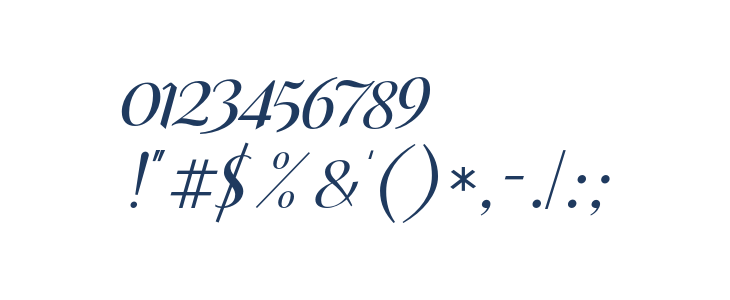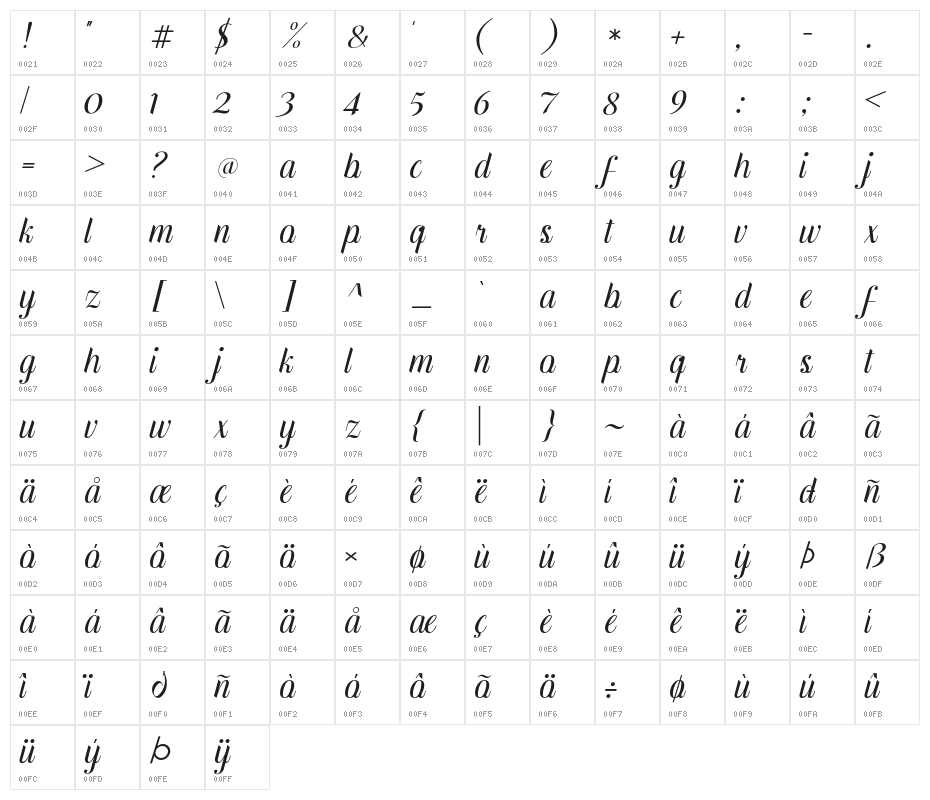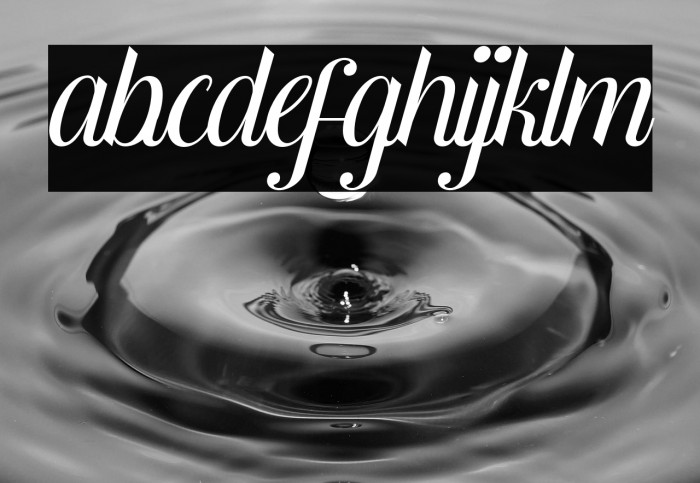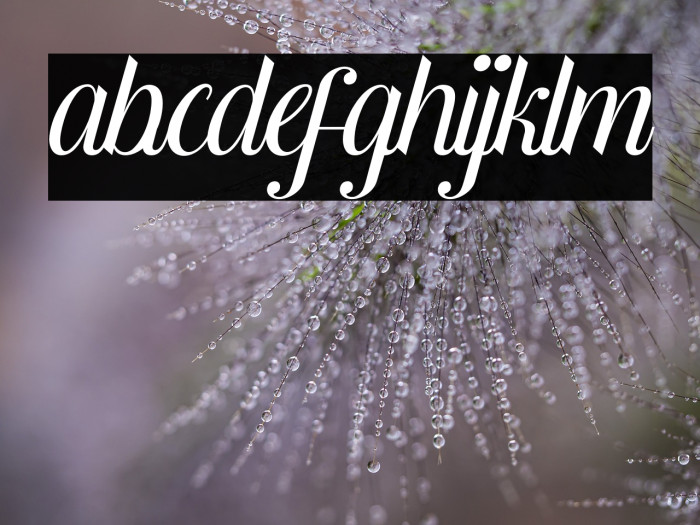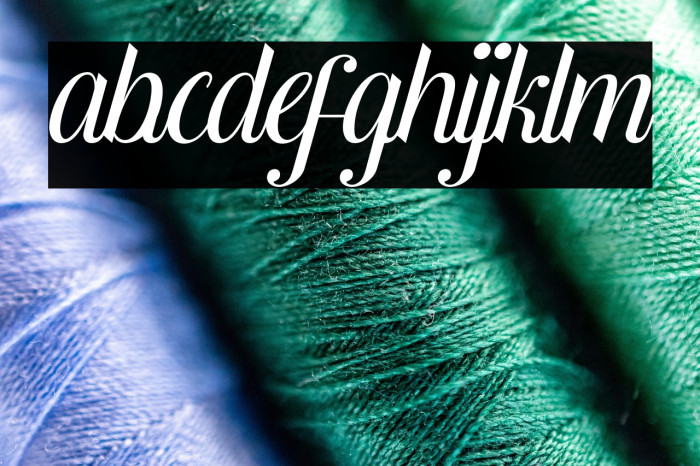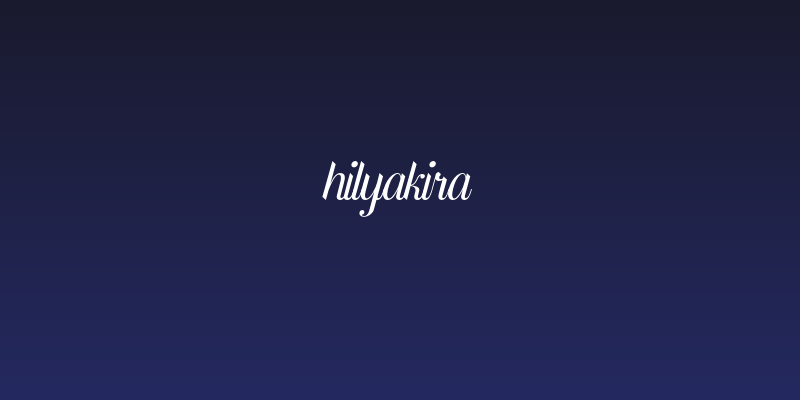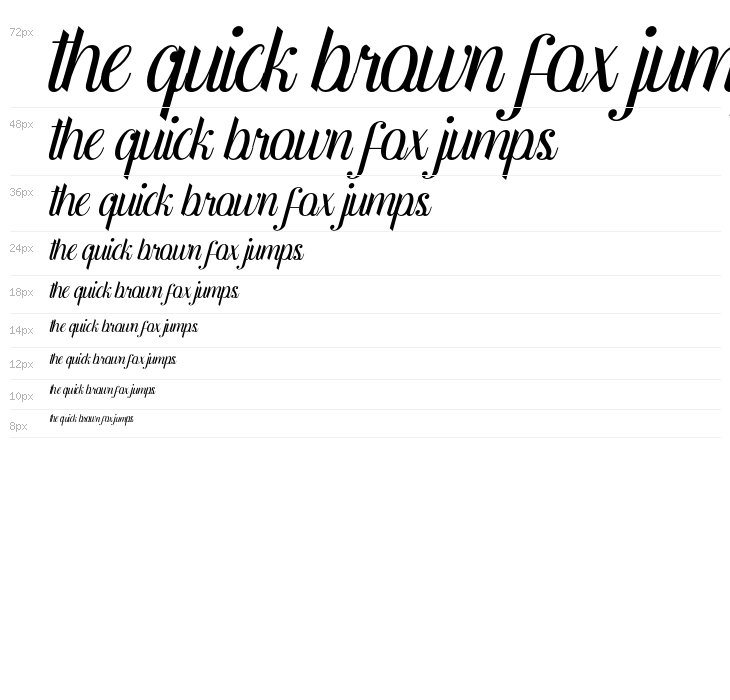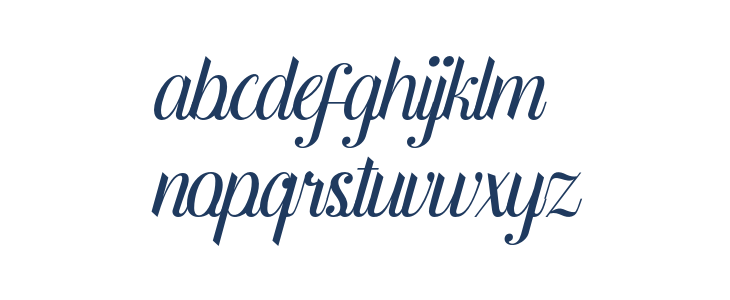
hilyakira Font
hilyakira Description
This font features a stylish and elegant script design with a flowing, cursive style. The characters are connected, giving a sense of continuity and fluidity. The strokes are moderately thick, providing a bold appearance while maintaining a graceful and sophisticated look. The font includes both uppercase and lowercase letters, numbers, and a variety of special characters. Its design is reminiscent of classic calligraphy, with a modern twist that makes it suitable for contemporary uses. The overall aesthetic is both decorative and functional, making it versatile for various design projects.
| Proposed Projects | Ideal for wedding invitations, elegant branding, greeting cards, and decorative headings. |